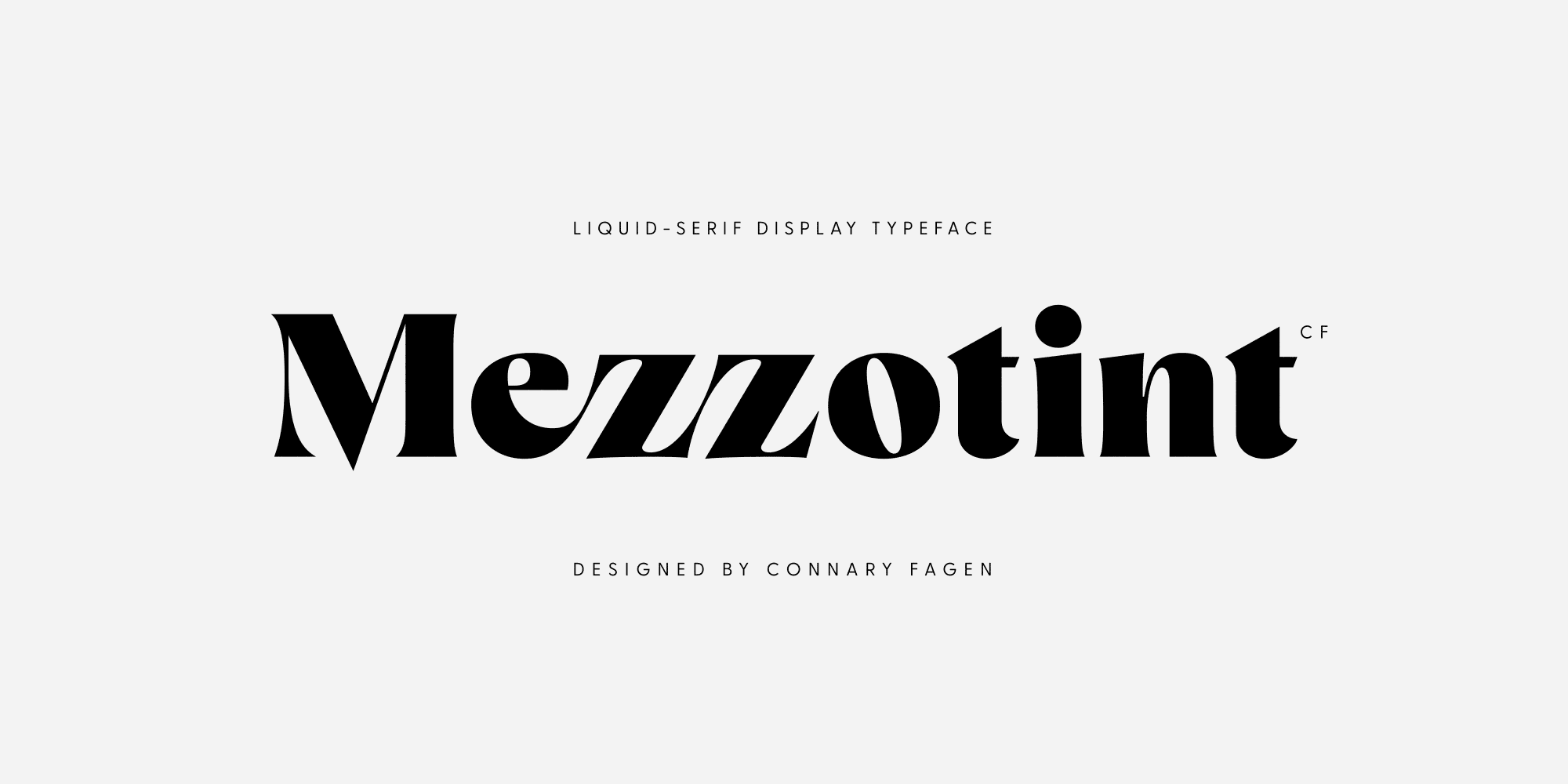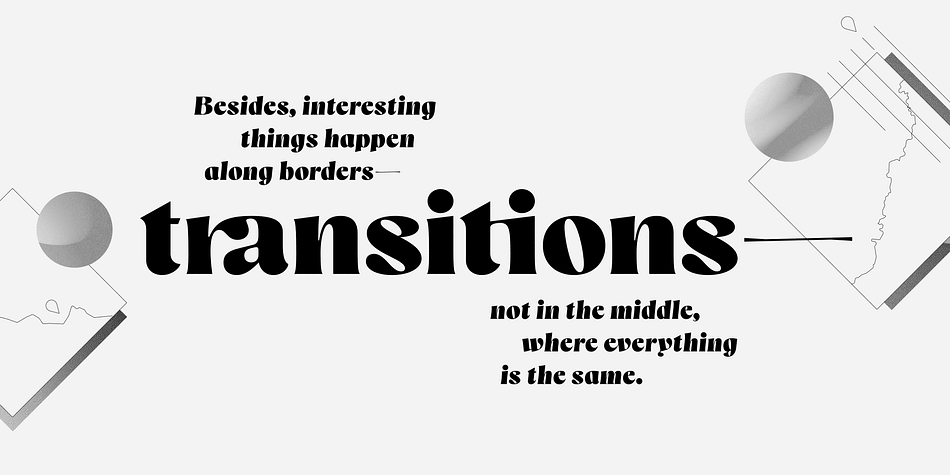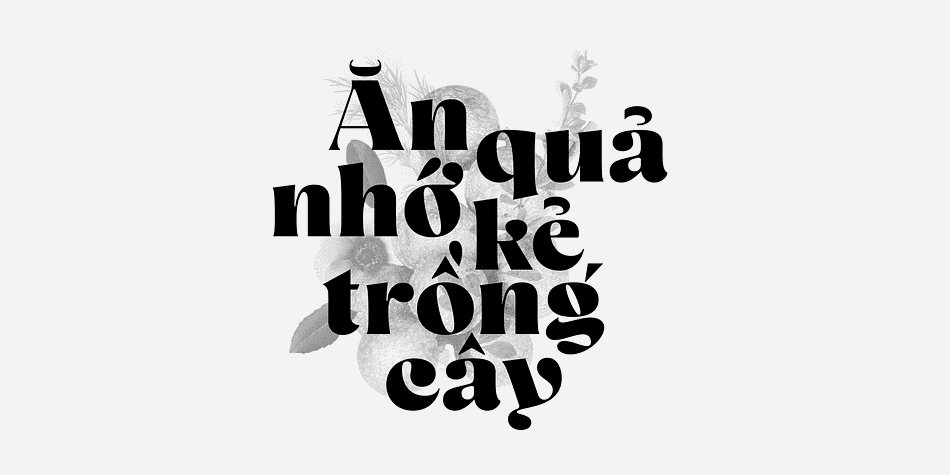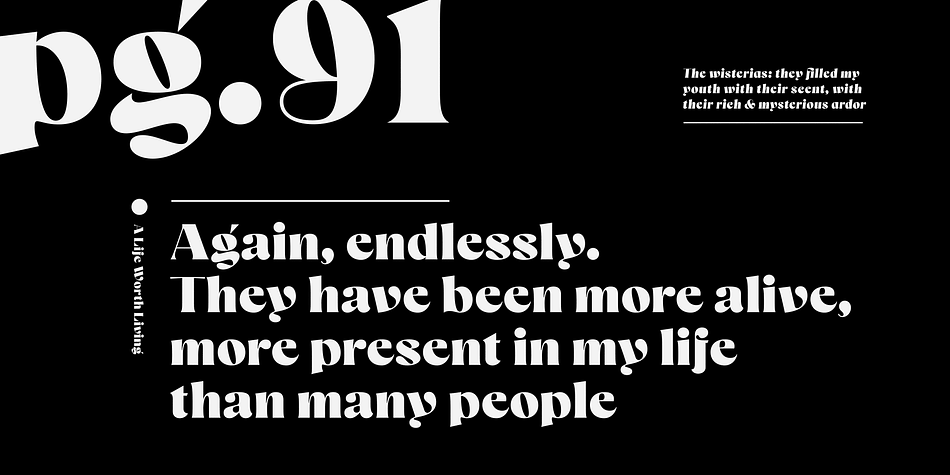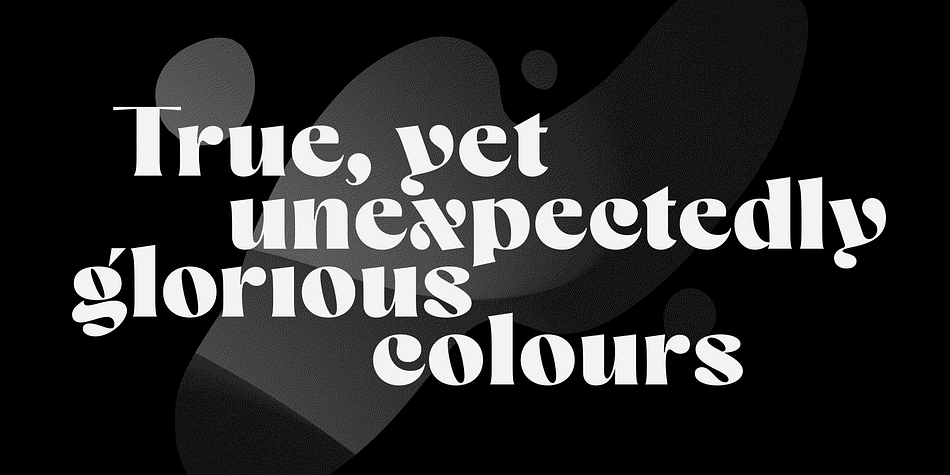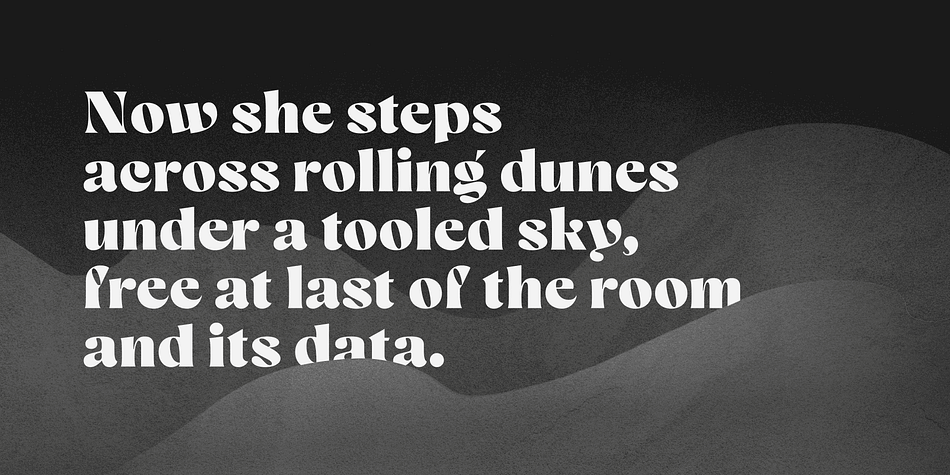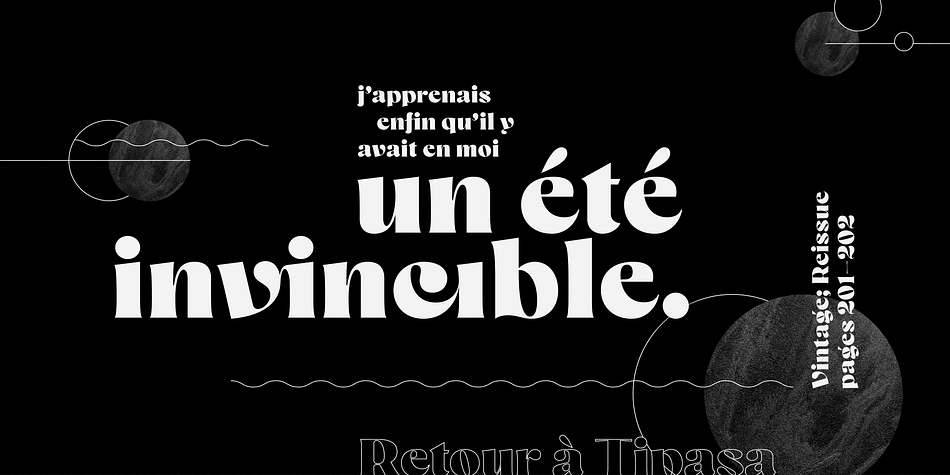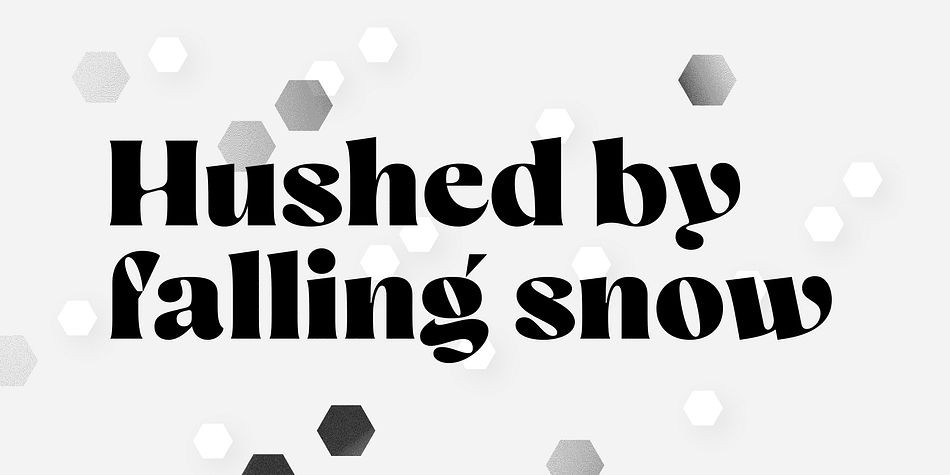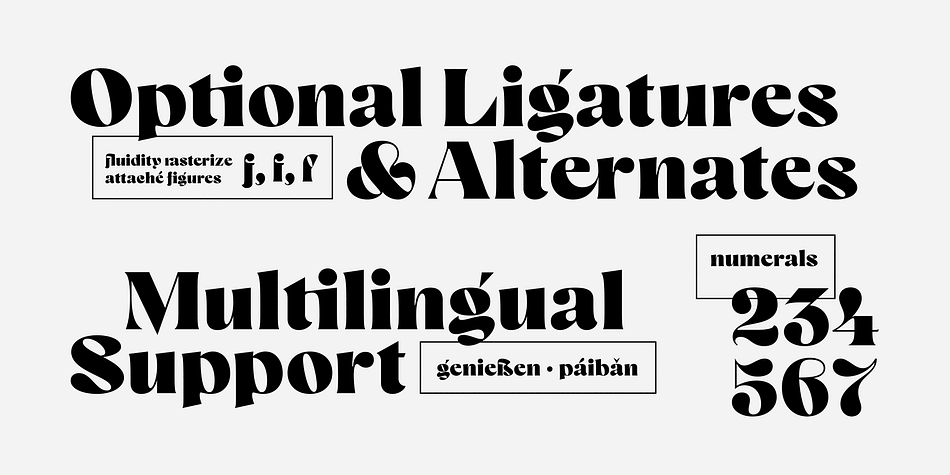
Designed by Connary Fagen, Mezzotint CF is a display serif font family. This typeface has two styles and was published by Connary Fagen Type Design.
Mezzotint CF is a daring and playful display typeface perfect for logotypes, posters, and editorial use. High-contrast strokes, flared serifs, aqueous connections, and inky terminals give Mezzotint CF its striking and rakish personality. Includes roman and italic sets across a single bold weight, with wide language support, optional ligatures, OpenType alternates, and more.
Mezzotint CF pairs well with a contrasting, simple geometric sans-serif like Greycliff CF; for maximum effect, try a large difference in typeface size between the two.